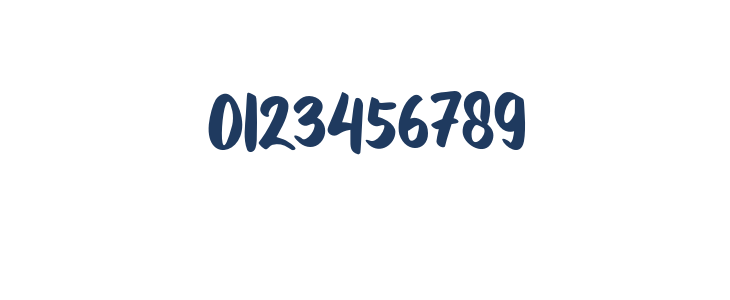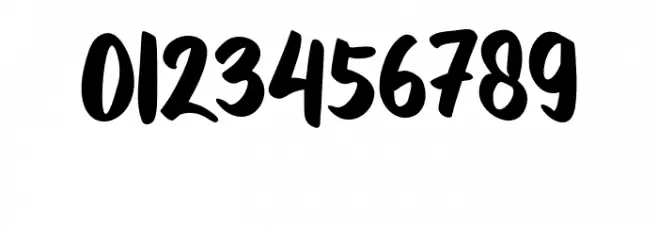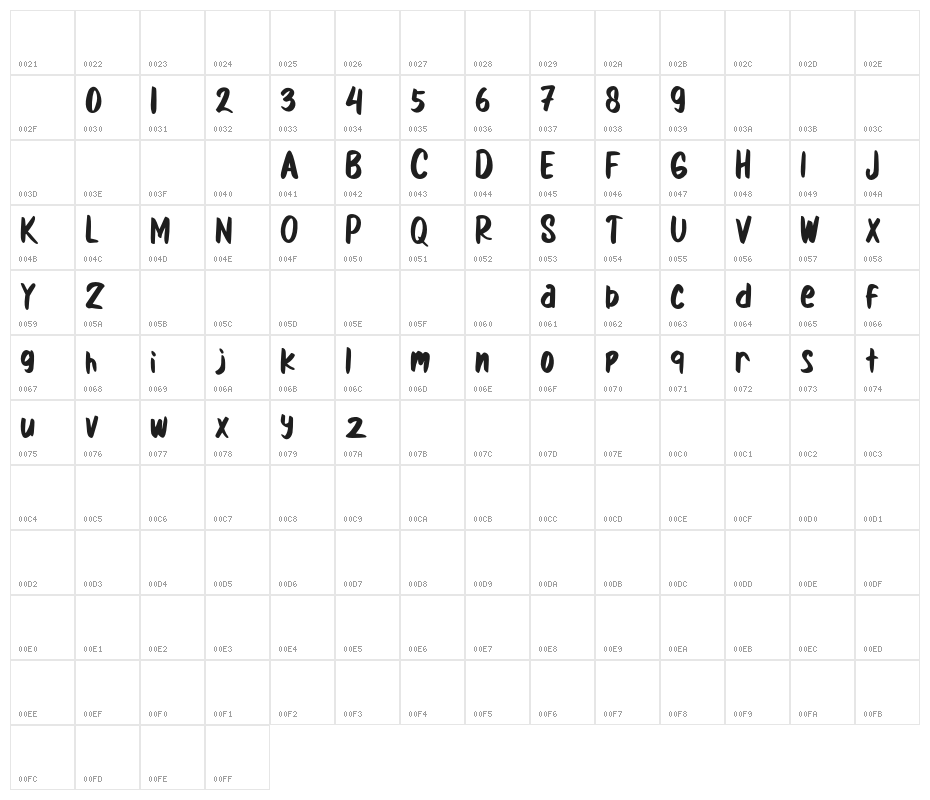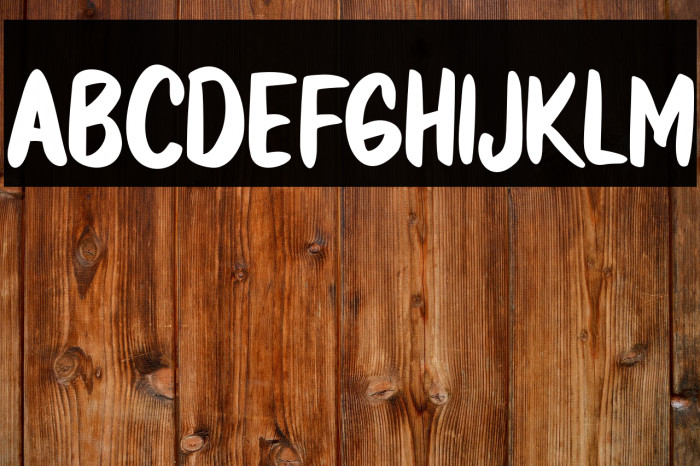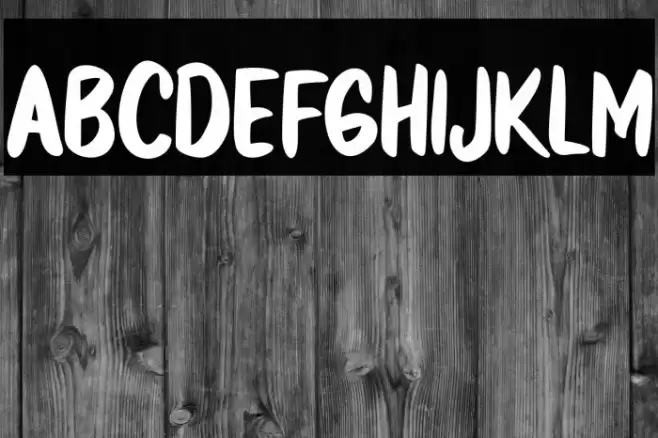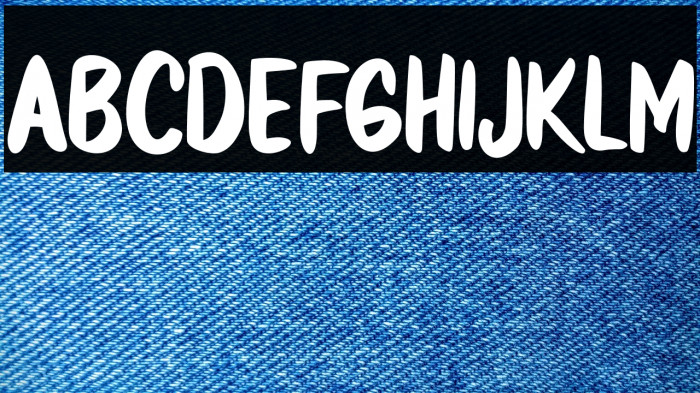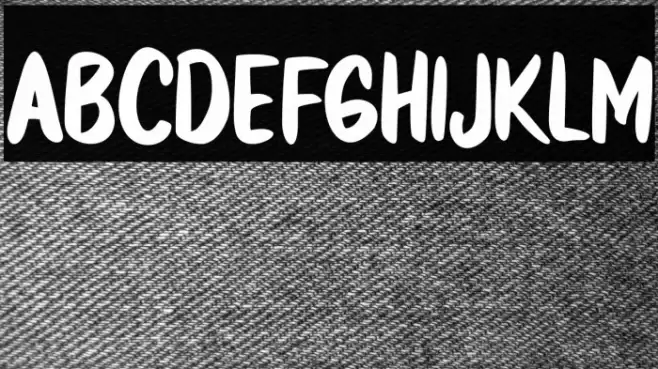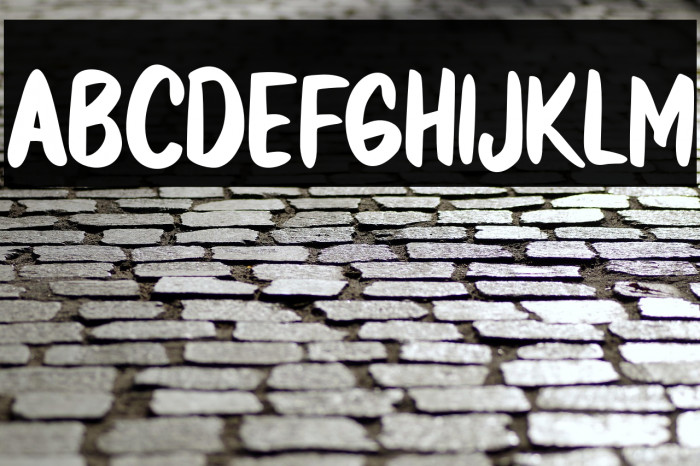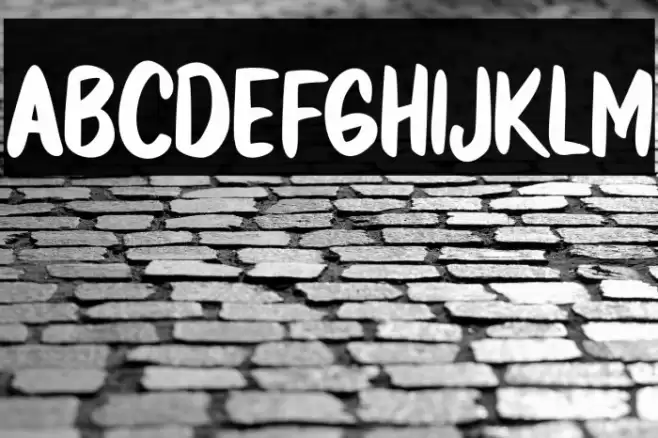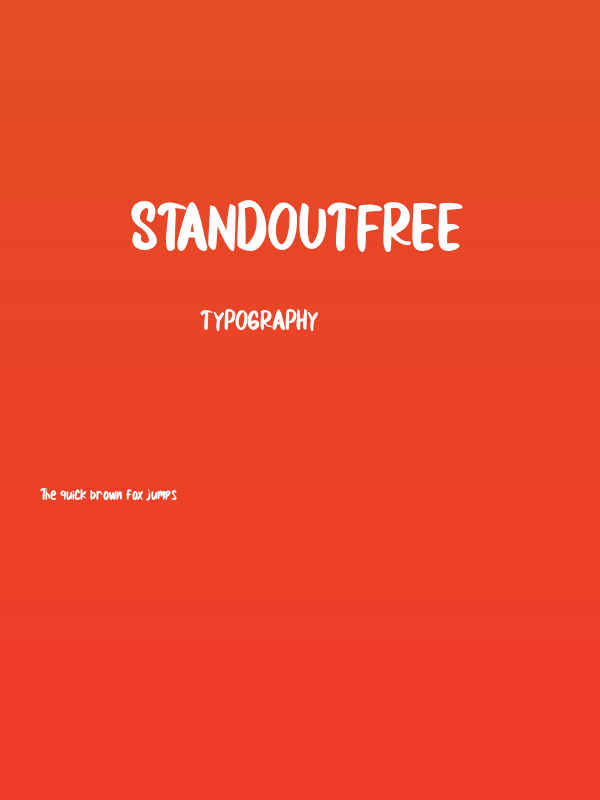
StandOutFREE Font
StandOutFREE Description
This font features a bold and playful style with a handwritten appearance. The letters are rounded and slightly irregular, giving it a casual and friendly feel. The uppercase and lowercase letters are distinct yet harmonize well together, maintaining a consistent flow throughout. Numbers and special characters share the same playful characteristics, making this font versatile for various creative projects. The strokes are thick, contributing to a strong visual impact, while the character spacing is relatively tight, enhancing its bold presence.